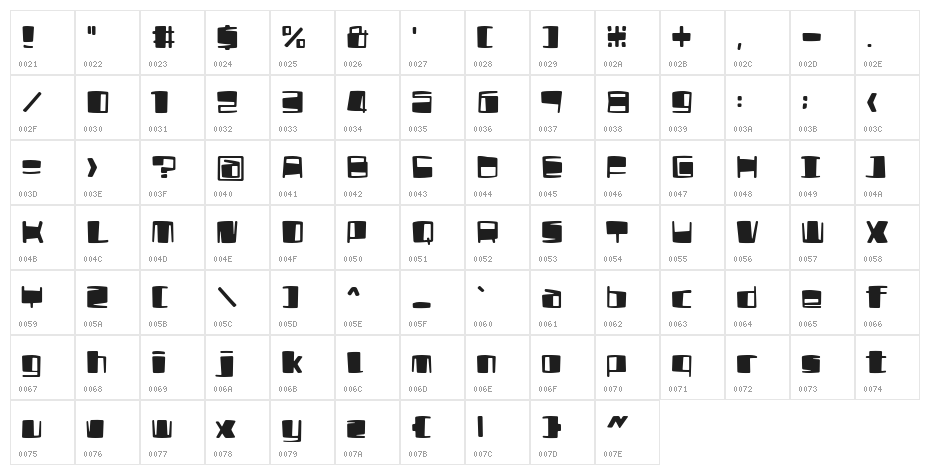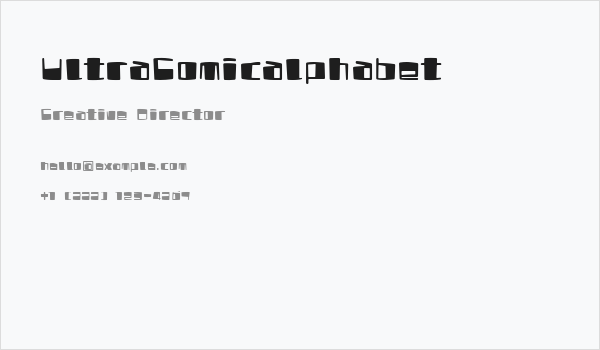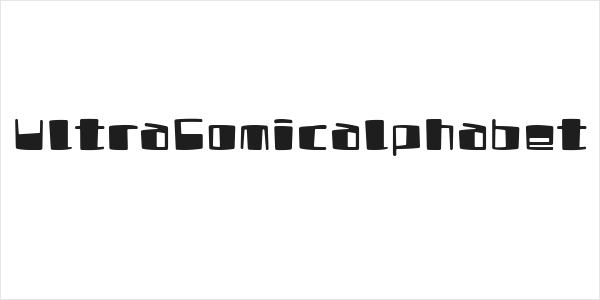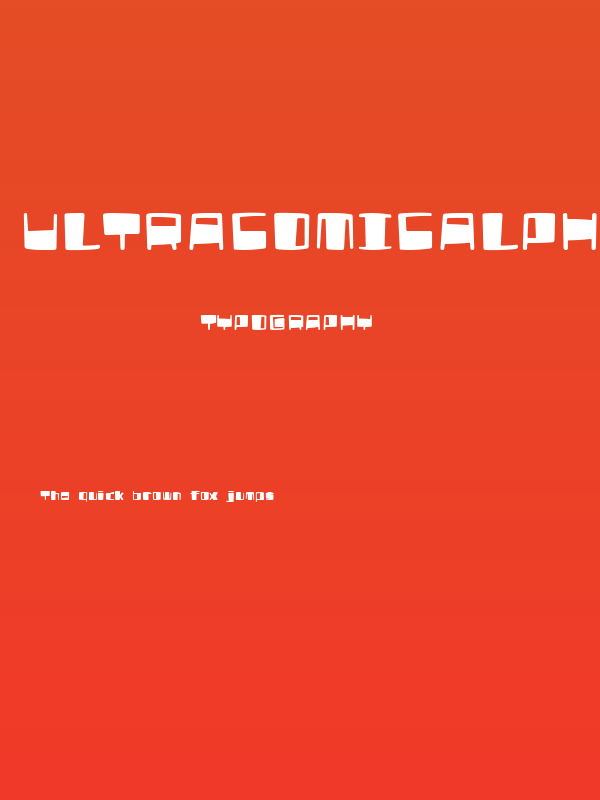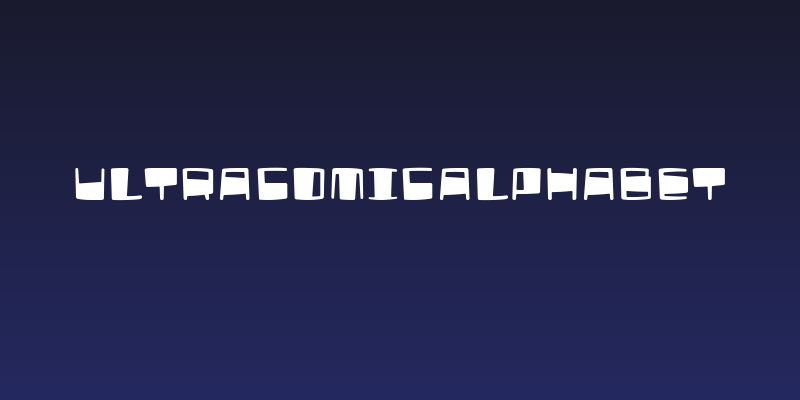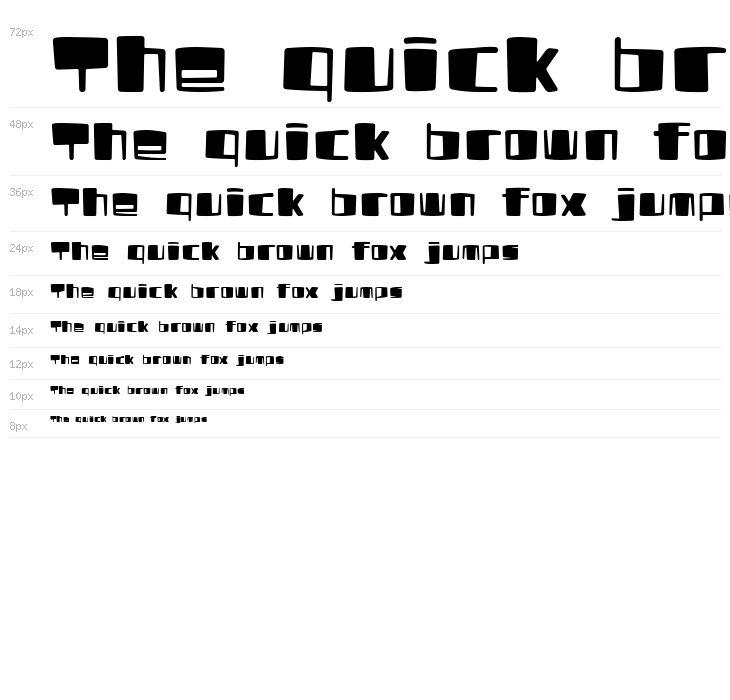
UltraComicalphabet Font
UltraComicalphabet Description
This font features a playful and bold style with a cartoonish flair. The characters are thick and slightly irregular, giving them a hand-drawn appearance. The uppercase and lowercase letters maintain a consistent width, while the numbers and special characters follow the same whimsical design. The strokes are uneven, adding to the casual and fun aesthetic. This font is ideal for projects that require a lighthearted and informal touch, such as children's books, comic strips, or playful branding. Its unique style makes it stand out, ensuring that any text using this font will capture attention.
| Overall Style | Playful, Cartoonish, Fun |
| Proposed Projects | Children's books, comic strips, playful branding, posters, and greeting cards. |